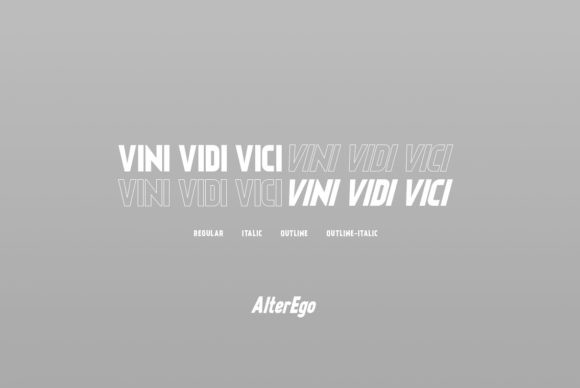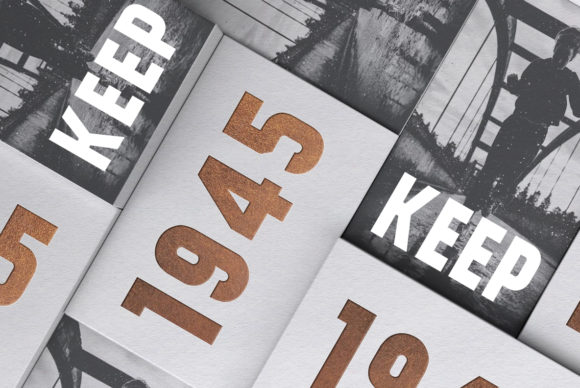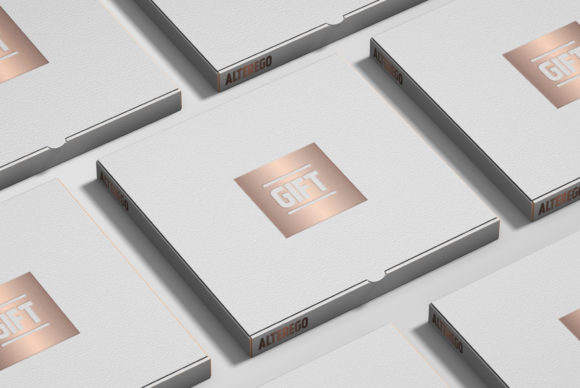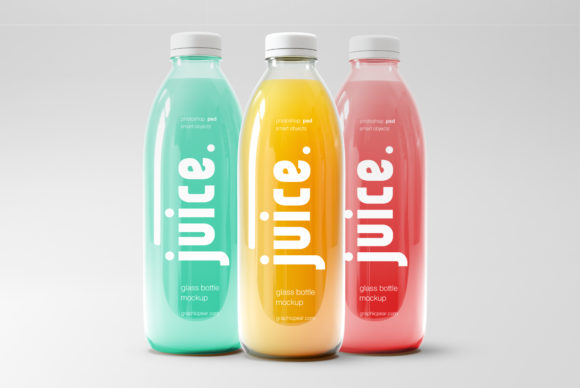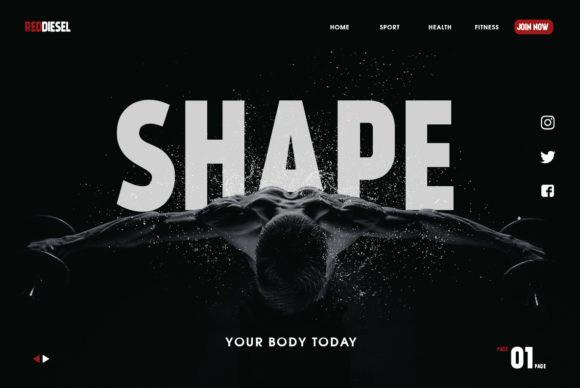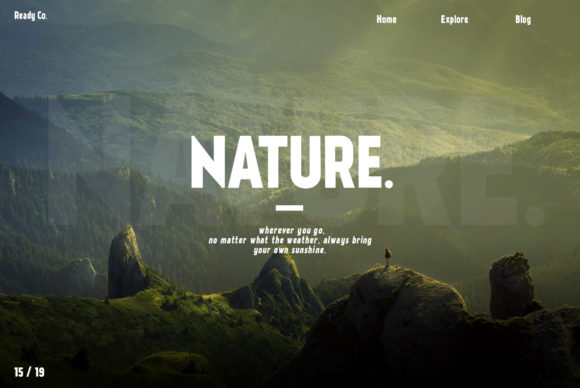
Introducing Alterego Font: The Ultimate Sans Serif Solution for Modern Designers
In the world of typography, a good font can make all the difference in creating a lasting impression. For designers and crafters, finding the perfect font that embodies both style and functionality can be a daunting task. However, look no further than the Alterego Font, a powerful sans serif font designed to elevate your designs to the next level.
The Power of Alterego Font
The Alterego Font is a sturdy and firm sans serif font, crafted with a balanced line that exudes modernity and sophistication. Its sleek design makes it an ideal choice for a wide range of applications, from websites and branding to logos, magazines, posters, films, and more. With its versatility and flexibility, Alterego Font is sure to become your go-to font for all your design needs.
Key Features of Alterego Font
- Sturdy and Firm Shape: The Alterego Font boasts a robust and solid shape that commands attention and conveys confidence.
- Balanced Line: The font’s balanced line ensures that your text is easy to read and understand, making it perfect for body text and headings.
- Modern Touch: The Alterego Font’s modern design gives it a fresh and contemporary feel that’s perfect for brands and designers looking to make a statement.
- Versatility: Whether you’re designing a website, logo, or print material, Alterego Font adapts seamlessly to any medium.
Why Choose Alterego Font?
With so many fonts available, why choose Alterego Font? Here are just a few reasons why designers and crafters are falling in love with this powerful sans serif font:
- Legibility: Alterego Font is designed with legibility in mind, ensuring that your text is easy to read and understand.
- Uniqueness: The font’s modern design and sturdy shape set it apart from more traditional sans serif fonts.
- Flexibility: Alterego Font can be used for a wide range of applications, from digital to print.
- Timelessness: The font’s classic design ensures that it will remain relevant for years to come.
Using Alterego Font in Your Designs
So, how can you incorporate Alterego Font into your designs? Here are a few ideas to get you started:
- Websites: Use Alterego Font as your website’s primary font to create a modern and cohesive look.
- Branding: Create a lasting impression with Alterego Font as part of your brand’s visual identity.
- Logos: Design a bold and memorable logo with Alterego Font.
- Magazines and Posters: Use Alterego Font to add a touch of modernity to your print materials.
- Films and Videos: Incorporate Alterego Font into your film or video titles and subtitles for a professional look.
| Font Name | Alterego Font |
| Author | I Do Not Sleep |
In conclusion, the Alterego Font is a powerful sans serif font that’s perfect for designers and crafters looking to elevate their designs. With its sturdy and firm shape, balanced line, and modern touch, Alterego Font is sure to become a staple in your font library. Whether you’re designing a website, logo, or print material, Alterego Font is the ultimate solution for creating a lasting impression.